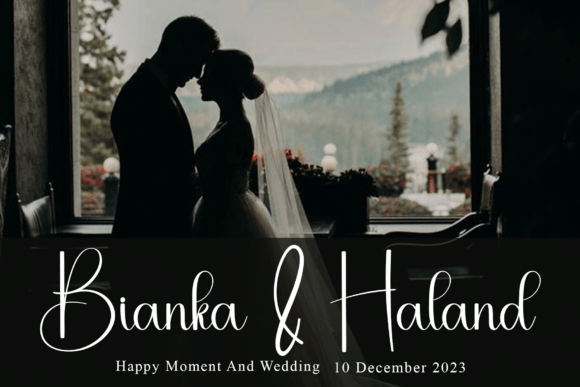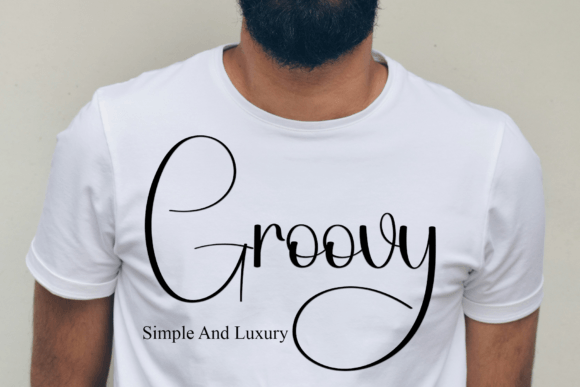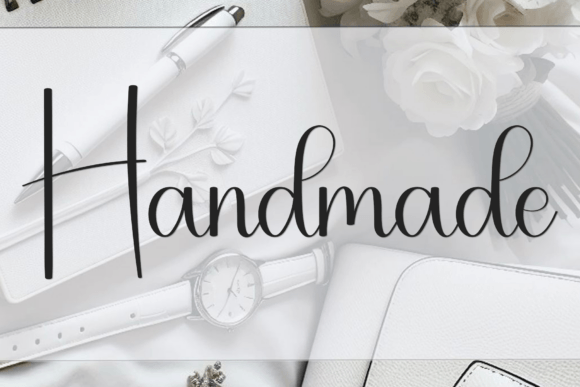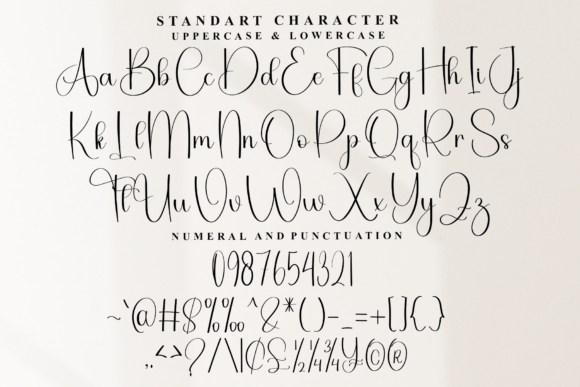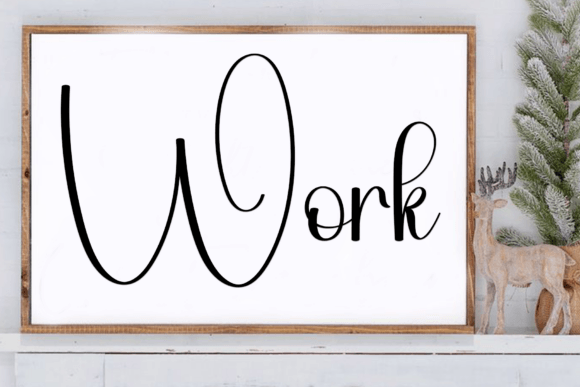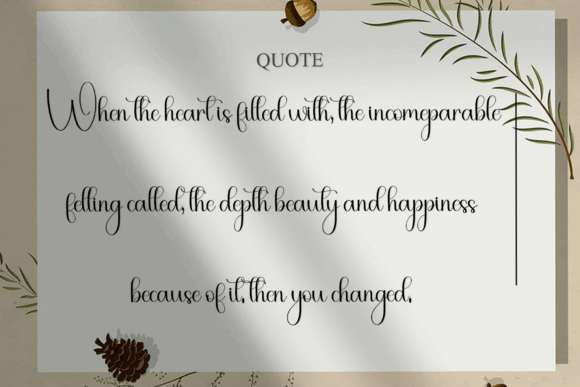
Introducing a Timeless Touch to Your Designs
Have you ever been browsing through a beautiful wedding invitation or a luxury brand’s logo and thought, “Wow, this font is stunning!”? That’s exactly what happened to many designers when they first laid eyes on Baby Font. This modern handmade script font is a masterclass in elegance and sophistication, featuring smooth curves and delicate swashes that add a touch of charm to any design.
Baby Font is more than just a pretty face; it’s a valuable tool for designers looking to elevate their projects. Whether you’re creating a wedding invitation, branding a new business, or designing a logo, this font is perfect for adding a touch of timeless beauty to your work. With its versatility and refined aesthetic, Baby Font is an essential addition to any designer’s toolkit.
Baby Font Key Features
- Unique Characteristics: Baby Font is known for its playful, cursive design and rounded edges, making it perfect for use in children’s products, educational materials, and other applications where a friendly, approachable tone is desired.
Baby Font Review
As a designer, I was initially drawn to Baby Font for its whimsical, playful vibe. ✨ The font’s rounded edges and childlike feel make it perfect for projects targeting young audiences or those with a nostalgic, retro aesthetic. ✨
One of the things I appreciate about Baby Font is its flexibility. ✨ It’s available in a range of weights and styles, from light and delicate to bold and expressive. This versatility makes it easy to incorporate into various designs, from headings and titles to body text and captions. ✨
Overall, I think Baby Font is a great addition to any designer’s toolkit. While it has its limitations, its unique aesthetic and flexibility make it a great choice for projects that require a playful, childlike feel. With a little caution and planning, Baby Font can be a valuable asset for designers of all levels.
Tips for Getting the Most Out of Baby Font
Use Baby Font for children’s book covers, nursery decor, and other projects that require a playful and whimsical touch. You can also use it to add a personal touch to birthday invitations and party decorations.
Experiment with different font sizes and styles to create a unique and eye-catching look. You can also combine Baby Font with other fonts to create a visually appealing contrast.